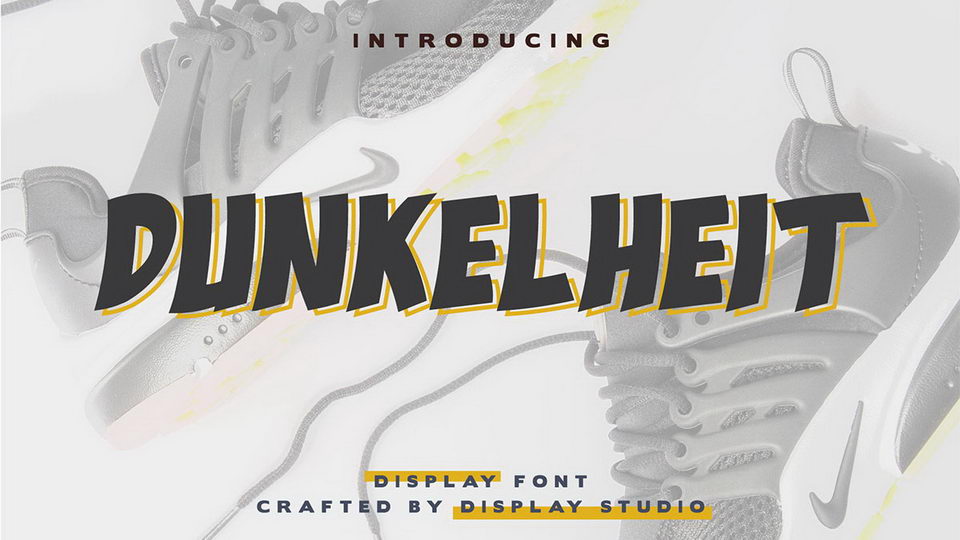
Download Dunkelheit font, a fun hand lettered display typeface. Dunkelheit is perfect for brand logo, posters, social media, merchandise and more.
Designer: Display Studio